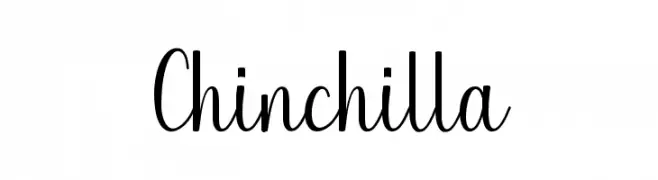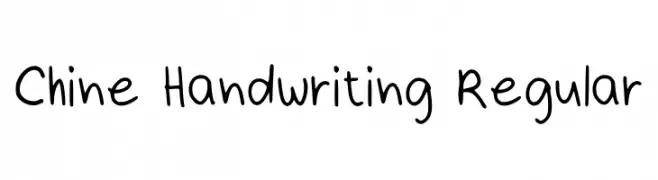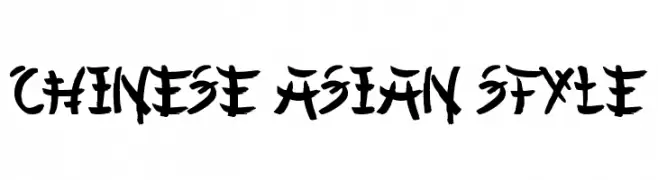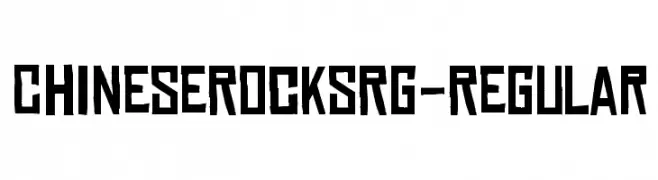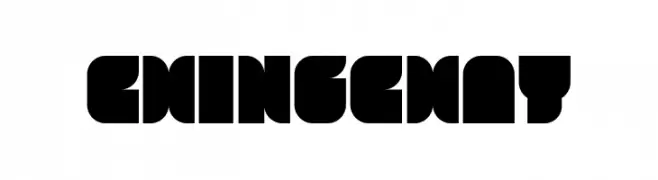
A charming script font with elegant, flowing curves and a handwritten feel.
A playful and elegant script font with interconnected loops and swirls.
Casual handwritten font with a playful style.
A bold, dynamic font inspired by traditional Asian calligraphy with sharp, angular strokes.
A bold, rugged font with a distressed, edgy appearance.
A bold, geometric font with rounded edges and a blocky design.